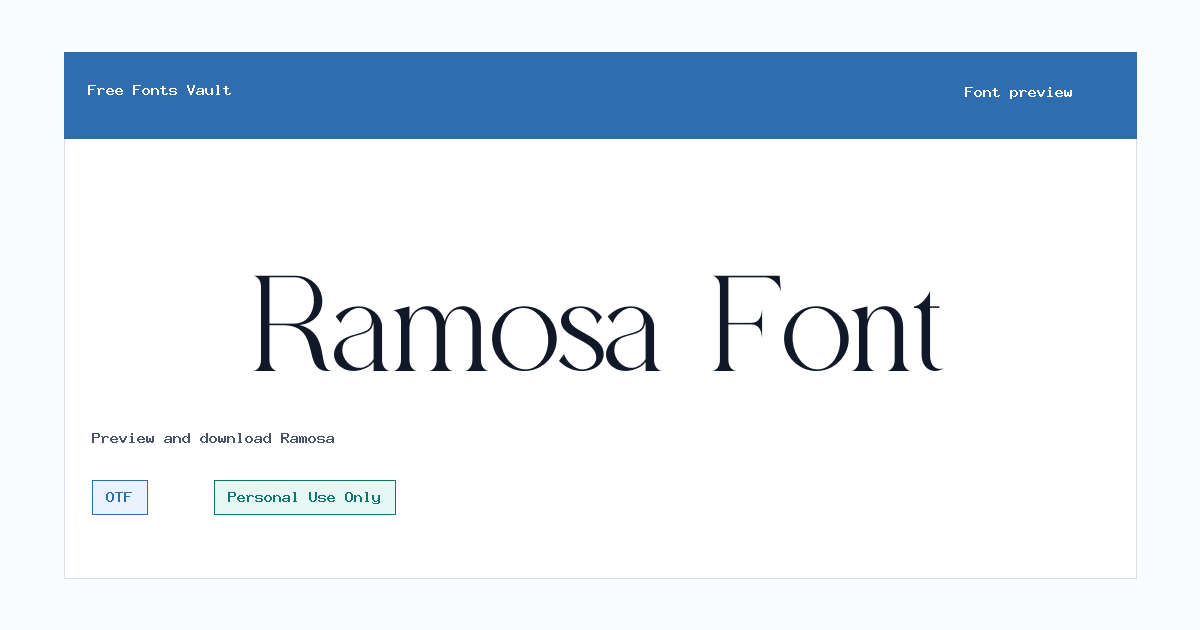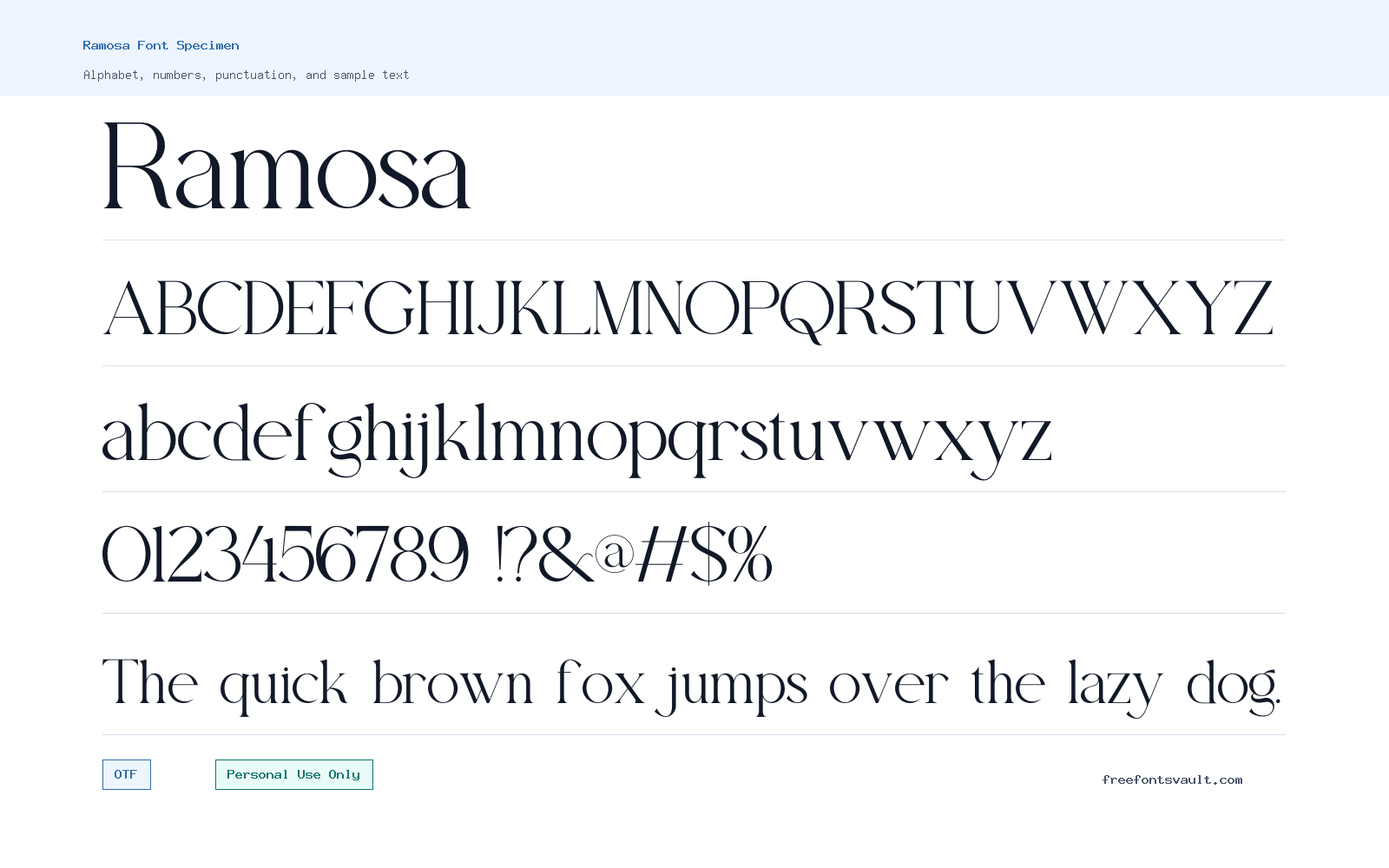
Ramosa
Ramosa font preview showing the family name
Ramosa Font
Ramosa font specimen showing alphabet, numbers, and sample text
• Designer ErmediaStudio
Ramosa font.
Ramosa is a serif font by ErmediaStudio with a Personal Use Only license. It is a good font to test when you need a polished serif look for private design drafts, mockups, or non-commercial artwork.
About Ramosa Font
Ramosa works best when you want a serif typeface that gives text a more composed and decorative feel than a plain system font. Because the font file is an OTF regular style, it is most useful for titles, short headings, name treatments, poster text, invitations, social graphics, and layout experiments where a single weight is enough. It is not a full multi-weight family, so designers should not expect built-in bold, italic, or extended style options unless they create separate styling in their design software.
• Serif font style suited to headings, display text, and short design phrases
What type of font is Ramosa?
Ramosa is described as a serif font. It is best tested for titles, display text, and short design settings rather than long body copy.